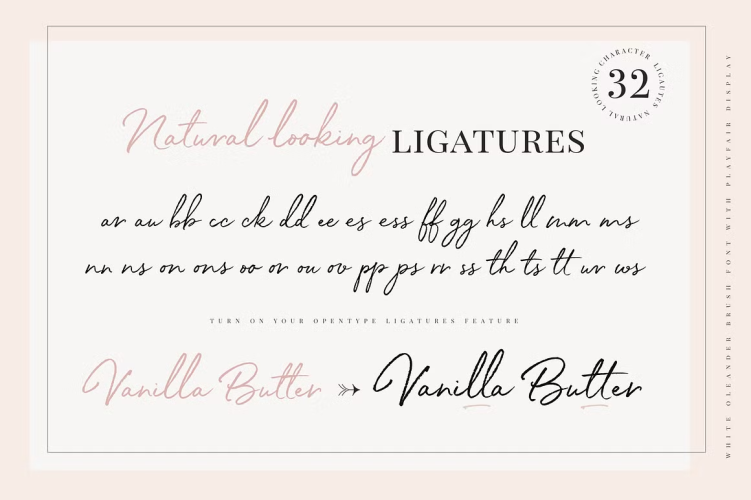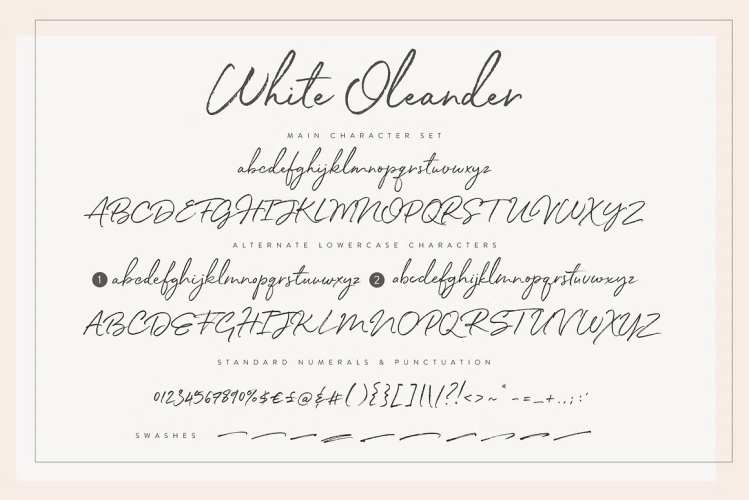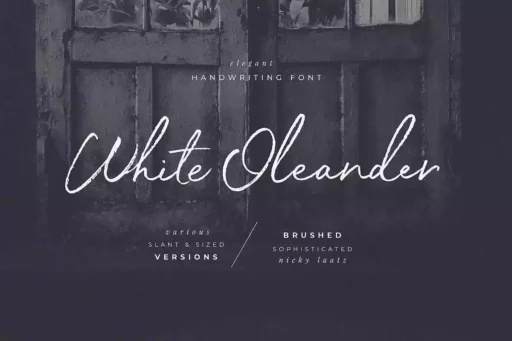
White Oleander Font
White Oleander is a delicate handwritten font by Nicky Laatz that has all the texture knots left in it to make it look as natural as possible without losing its readability on your designs. White Oleander font family comes in 4 versions: Regular, Slanted, Upright and Compact, each with a different touch to it, from elegant to casual, and even playful.
A complete range of upper and lower case letter variants, as well as a second set of lower case variants are available through its OpenType features. White Oleander also contains 32 realistic ligatures and 10 swashes that will bring your type design to life.
White Oleander Font is a Script And Handwritten font that brings a professional and versatile look to your projects. White Oleander is a delicate handwritten font by Nicky Laatz that has all the texture knots left in it to make it look as natural as possible without losing its readability on your designs.